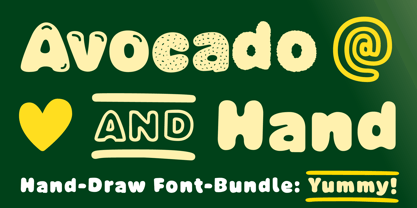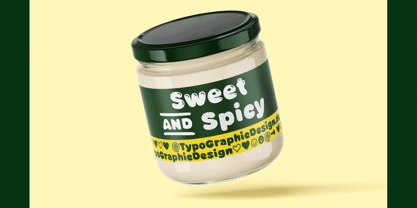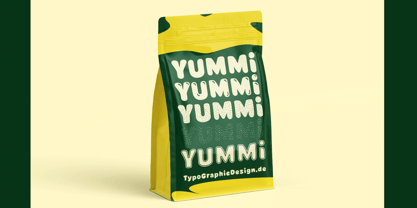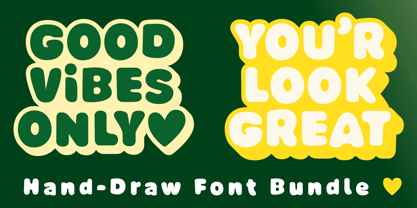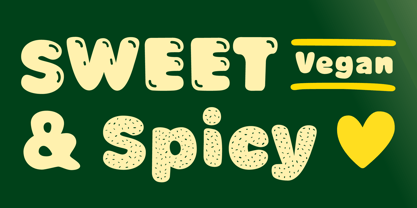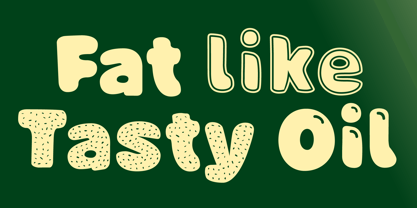
Avocado Hand
by TypoGraphicDesign
The Avocado Hand Font Family was designed by Manuel Viergutz and published by TypoGraphicDesign. Avocado Hand contains 8 styles and family package options. More about this family
The typeface Avocado Hand is designed as a handmade Display-Font with a comic friendly and authentic hand-drawing character. The forms are based on a classic sans serif. Hand-drawn lines and playful details give the font a personal and organic feel. Developed in 2026 for the font foundry Typo Graphic Design by the graphic- & type-designer Manuel Viergutz. Designed with love, pencil, tablet & computer. 8 font-styles (Spice, Rough, Reflection, Outline, Inline, Highlight, Fat, Deco) with 310 glyphs (Adobe Latin 1) for 68 languages incl. decorative extras like icons, arrows, catch words, dingbats, emojis, symbols, geometric shapes (type the word #LOVE for ❤ as OT-Feature dlig) and stylistic alternates (2 stylistic sets). 15 OpenType features. For use in logos, packaging for drinks & food, magazines, posters, advertisement plus as webfont for decorative big text. The font works best for headlines. Font Spe­ci­fi­ca­ti­ons ■ Font Name: Avocado Hand ■ Font Styles: 8 font weights ■ Font Cate­gory: Display for head­lines ■ Font For­mat: for Mac + Win ■ Glyph Set: 310 glyphs (Adobe Latin 1 incl. decorative extras) ■ Lan­guage Sup­port (68 languages): Afrikaans Albanian Asu Basque Bemba Bena Breton Catalan Chiga Cornish Danish Dutch English Estonian Faroese Filipino Finnish French Friulian Galician German Gusii Icelandic Indonesian Irish Italian Kabuverdianu Kalenjin Kinyarwanda Luo Luxembourgish Luyia Machame Makhuwa-Meetto Makonde Malagasy Manx Morisyen North Ndebele Norwegian Bokmål Norwegian Nynorsk Nyankole Oromo Portuguese Quechua Romansh Rombo Rundi Rwa Samburu Sango Sangu Scottish Gaelic Sena Shambala Shona Soga Somali Spanish Swahili Swedish Swiss German Taita Teso Uzbek (Latin) Volapük Vunjo Zulu ■ OpenType features (15): aalt ccmp dlig dnom frac liga locl numr ordn ss01 ss02 sups kern mark mkmk ■ Specials: Catchwords like FOR, Emojis like Smiley ☺ ☻, Symbols like Heart ♥︎, arrows ➡︎, Geometric Shapes ▲ ⚫️ ■ Design Date: 2026 ■ Type Desi­gner: Manuel Viergutz